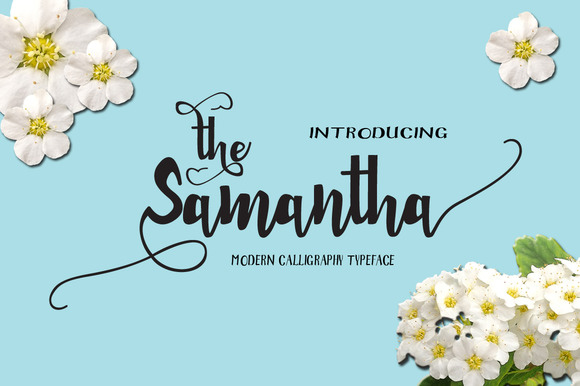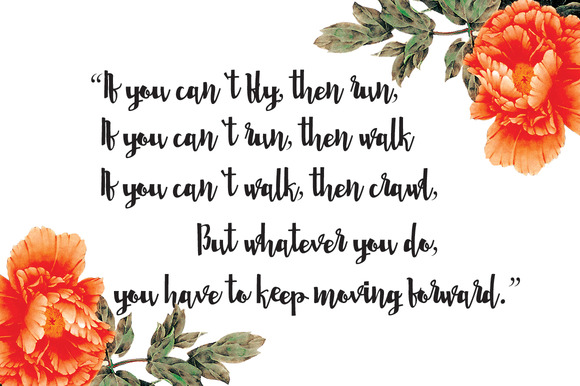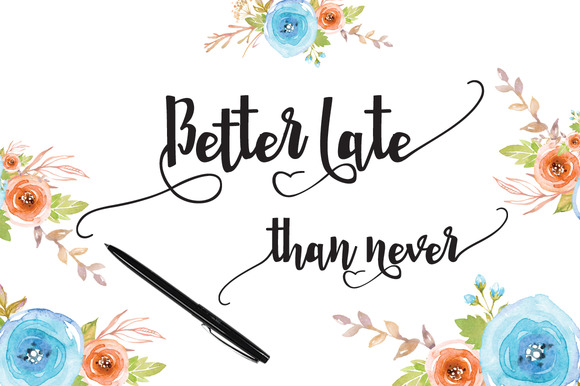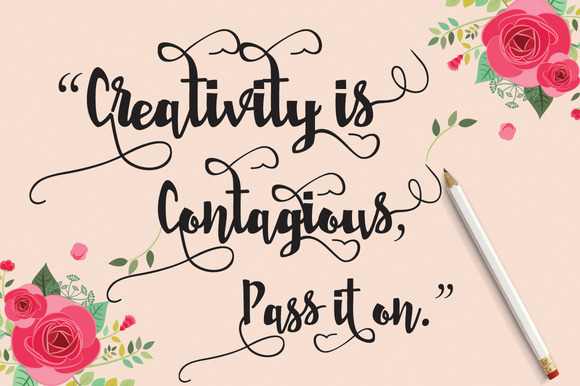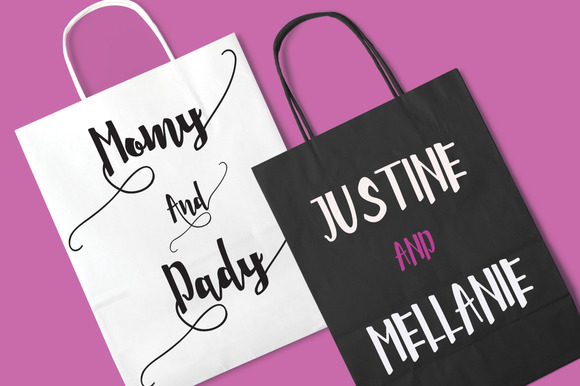
About Samantha Font
About The Samantha Font
The Samantha is a beautiful script font with over 430 unique glyphs. Each letter of The Samantha Font is carefully handcrafted by the designer.
After all the letters were drawn each letter was scanned individually, digitized, and optimized until perfection. The result is a font where all letters blend together perfectly.
Swashes
The Samantha contains many unique swashes that allow you to make a unique word composition every time you use it. The style in which the letters have been created makes it feel like a mix of a cursive font and a calligraphy font.